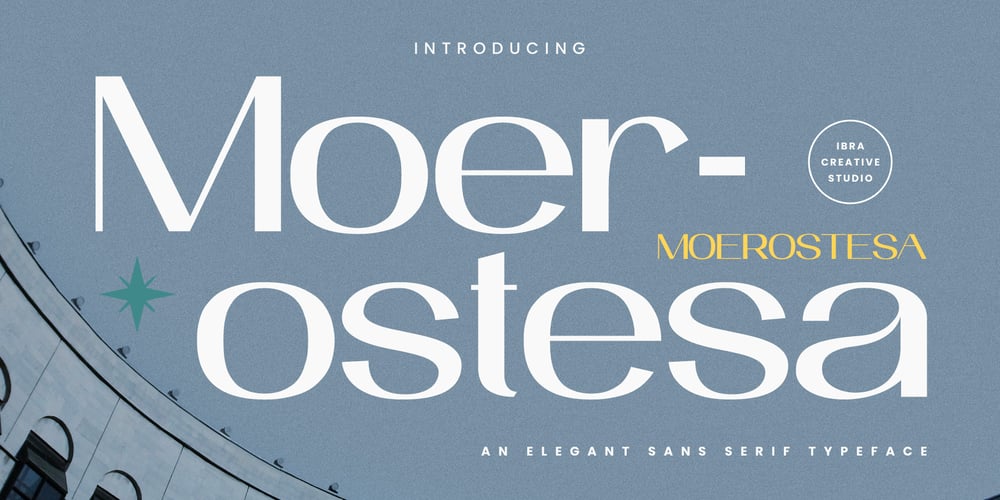
Moerostesa Font Family was designed by Roisatul Azizah and published by IbraCreative. Moerostesa contains 1 styles and family package options. Moerostesa – An Elegant Sans Serif TypefaceMoerostesa, an elegant sans-serif typeface, embodies sophistication and refinement in its graceful design. With clean lines and subtle curves, each letter exudes a timeless charm that seamlessly blends modernity with classic aesthetics. The balanced proportions and delicate strokes of Moerostesa lend an air of understated elegance to any typographic composition, making it a versatile choice for a wide range of design projects. Whether used for branding, editorial layouts, or digital interfaces, this typeface exudes a sense of effortless style and sophistication, elevating the visual impact of any text it adorns. Moerostesa stands as a testament to the beauty of simplicity and the power of elegant typography to captivate and inspire. Moerostesa is perfect for branding projects, logo, wedding designs, social media posts, advertisements, product packaging, product designs, label, photography, watermark, invitation, stationery, game, fashion and any projects.Fonts include multilingual support for; Afrikaans, Albanian, Czech, Danish, Dutch, English, Estonian, Finnish, French, German, Hungarian, Italian, Latvian, Lithuanian, Norwegian, Polish, Portuguese, Slovak, Slovenian, Spanish, Swedish.